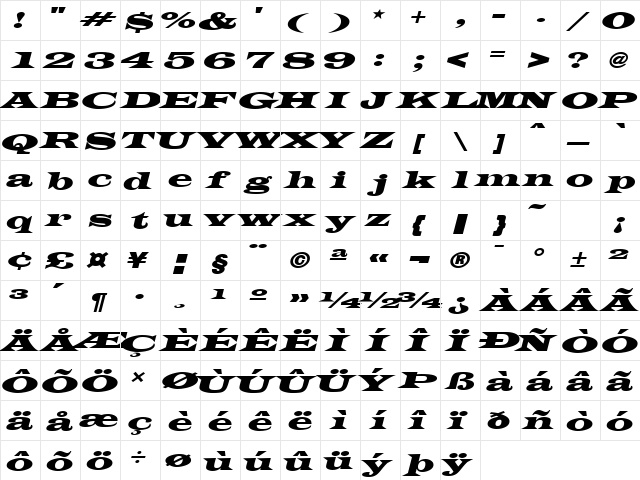
TransverseExpandedSSK Italic
Design Context for TransverseExpandedSSK Typeface
TransverseExpandedSSK takes a measured approach to typography — its balanced proportions and neutral character make it a reliable workhorse for both digital and print work. The slanted form adds forward momentum and visual energy.
Pro Tip: Use TransverseExpandedSSK for emphasis, pull quotes, and subheadings where its slanted energy can add rhythm to the layout.